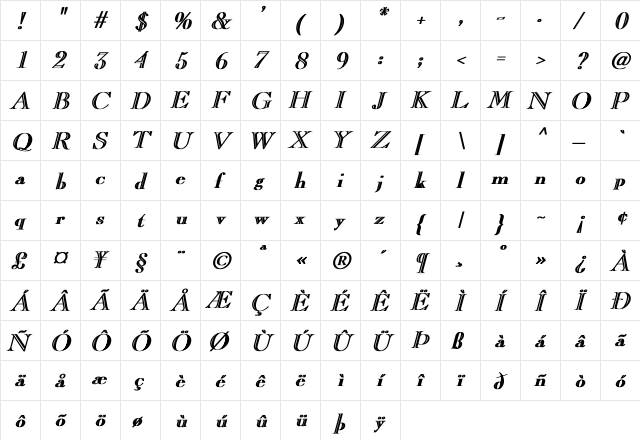
CaslonOpenFace Bold Italic
Design Context for CaslonOpenFace Typeface
CaslonOpenFace is a composed and adaptable typeface that performs quietly and consistently across a wide range of design contexts. Its italic angle brings a sense of urgency and motion to the letterforms. Its bold stroke weight gives it real presence on the page.
Pro Tip: Try CaslonOpenFace for annotation and caption copy alongside an upright companion — the contrast in angle creates a dynamic but ordered typographic system.